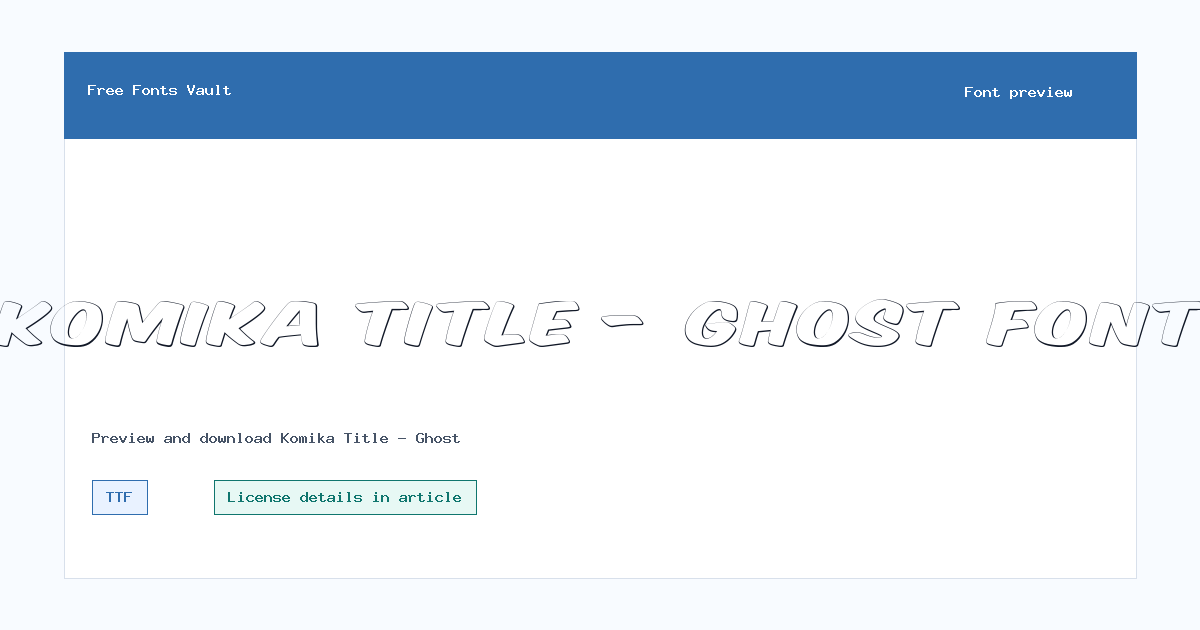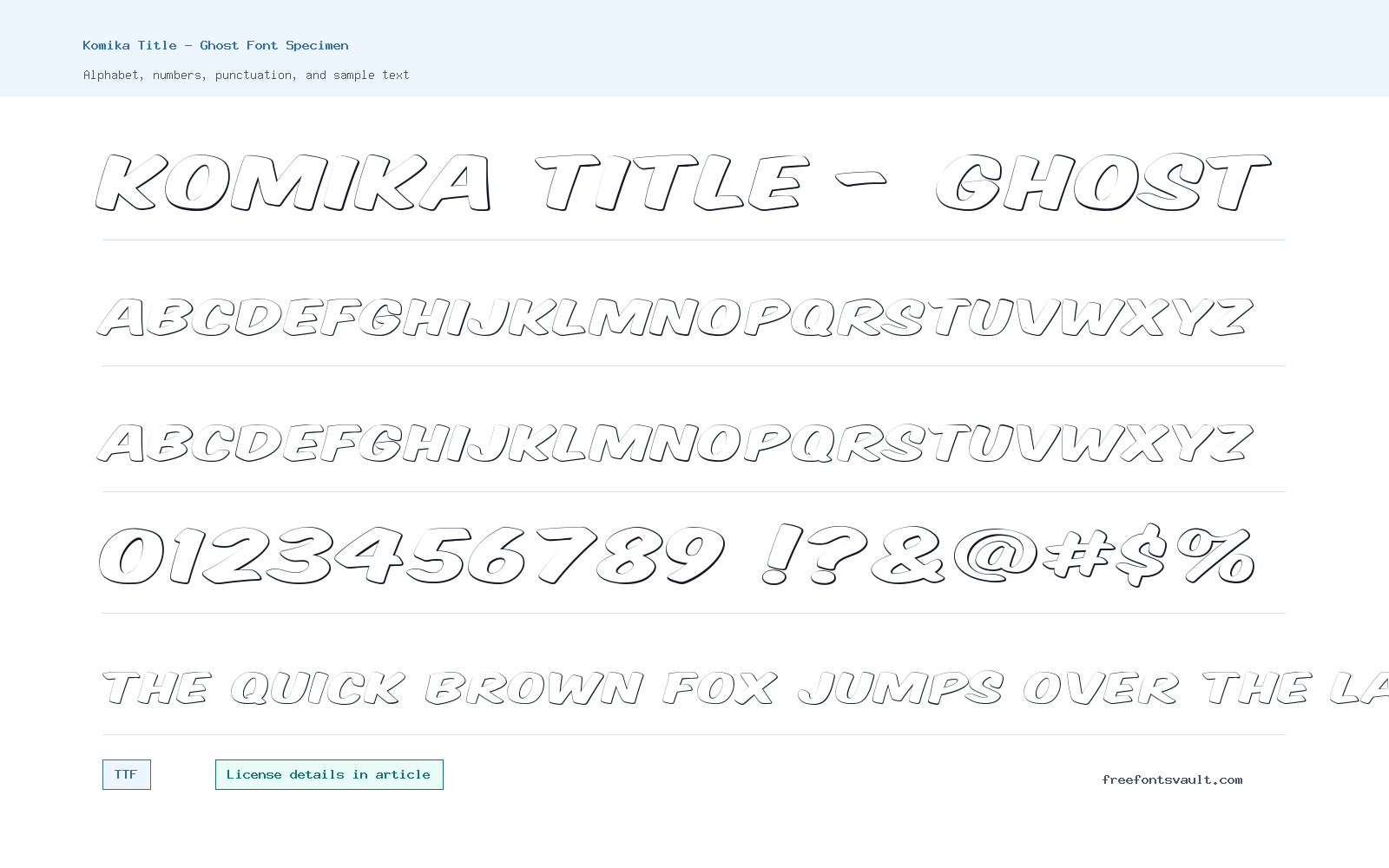
Komika Title - Ghost
Komika Title – Ghost font.
Komika Title – Ghost is a comic-style display font with outlined, playful letterforms made for big, lively text. It works best when you need a title or short phrase to feel fun, spooky, or cartoon-like without becoming too hard to read.
About Komika Title – Ghost
Komika Title – Ghost belongs to the Komika Title family, part of the wider Komika series by WolfBainX & Apostrophe. Fonts In Use describes Komika Title as a 13-font all-caps title family that includes the Ghost style, while the downloadable file for this style is KOMTITG_.ttf in TrueType format. The Ghost cut gives the letters a light, outlined display look that fits comic panels, speech-bubble graphics, party artwork, and Halloween-themed headings.
Use Komika Title – Ghost for short, high-impact text rather than long reading passages. Try it for comic book covers, sticker text, social graphics, event posters, playful packaging mockups, and spooky headline treatments. Because the style is decorative, preview your exact words before downloading, especially if you plan to use tight spacing, small sizes, or all-caps lines. Pair it with a plain sans serif or readable comic text face for body copy so the title keeps its punch without making the full design feel crowded.
• Comic display lettering with a ghost-like outlined style
• Part of the Komika Title all-caps family
• Suited to headlines, covers, posters, stickers, and themed graphics
• Comic book titles and cover lettering
• Halloween, ghost, and spooky party graphics
• Speech-bubble words and cartoon captions
• Posters, stickers, labels, and social media images
• Playful all-caps display text
Komika Title – Ghost is credited to WolfBainX & Apostrophe. Fonts In Use connects the Komika Title family with Apostrophic Labs and Vigilante Typeface Corporation.
Keep the font large and give the letters enough space. It is strongest for a few words at a time, such as a comic title, spooky label, sticker phrase, or poster headline. For paragraphs, menus, or small captions, use a simpler companion font and reserve Komika Title – Ghost for the main visual hit.
Who designed Komika Title – Ghost?
The font metadata credits WolfBainX & Apostrophe as the designers.
What kind of designs is this font best for?
It is best for comic-style titles, speech-bubble graphics, Halloween lettering, stickers, posters, covers, and other short display text.
Is Komika Title – Ghost good for body text?
No. Its outlined comic style is meant for headlines and short phrases. Use a simpler font for longer text.